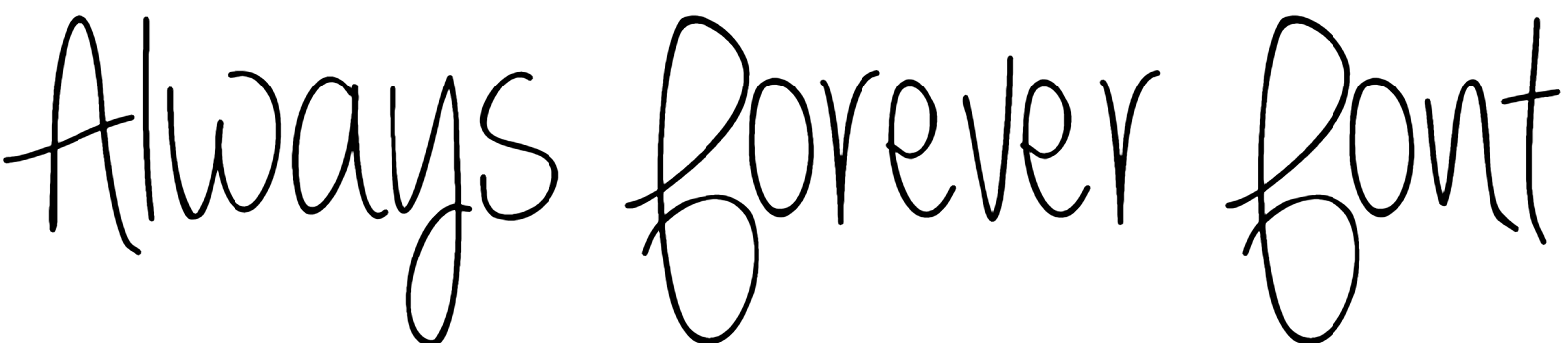
Always Forever
Always Forever is a handwritten font made by Brittney Murphy (2012). It looks like someone actually wrote it by hand: relaxed, friendly and a little imperfect in a good way. You can download it for free and test it with your own words in the preview above.
What You Can Type With Always Forever
You get every letter from A to Z in both cases and all the numbers from 0 to 9, which means Always Forever can handle full sentences, dates and prices. Common punctuation such as &, !, ? and @ is included as well. It doesn't include accented letters such as é or ñ, which makes it an English-only font.
Where Always Forever Works Best
Think of Always Forever for greeting cards, journal pages and friendly social posts. Set it a bit larger than you would a normal text font. Handwriting styles lose their charm once they get too small to read comfortably.
Who designed Always Forever font?
Does Always Forever support accented letters?
No. Always Forever has no accented letters such as é, ñ or ü, so it's best for English text.